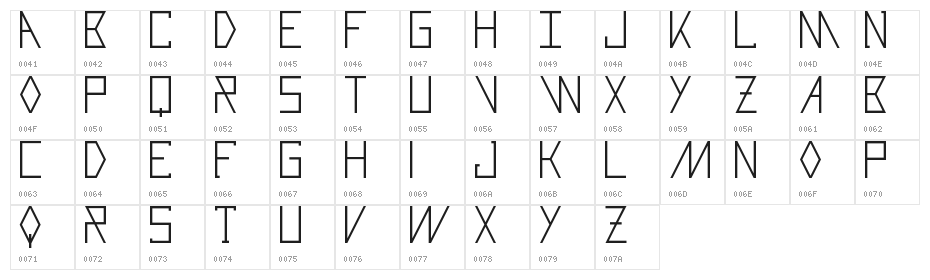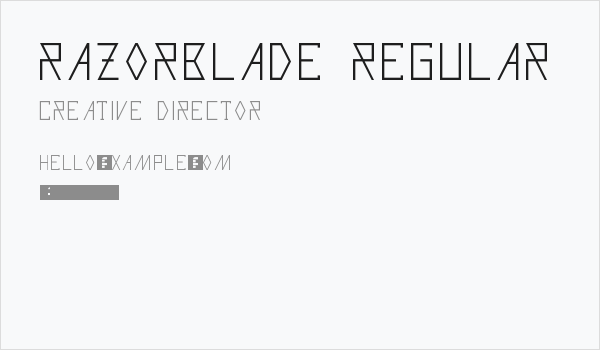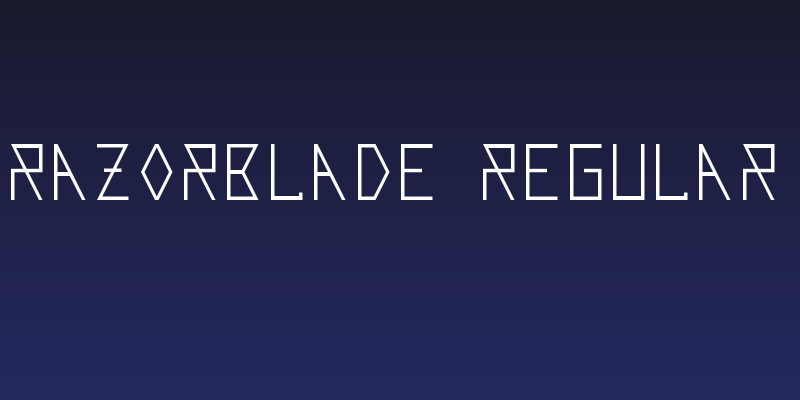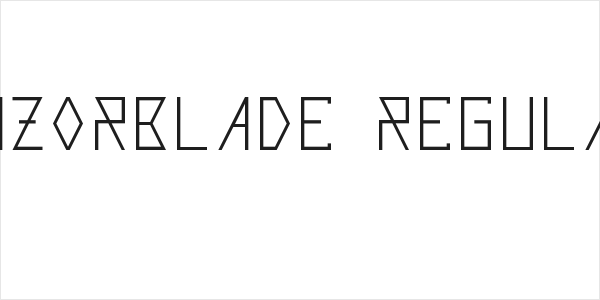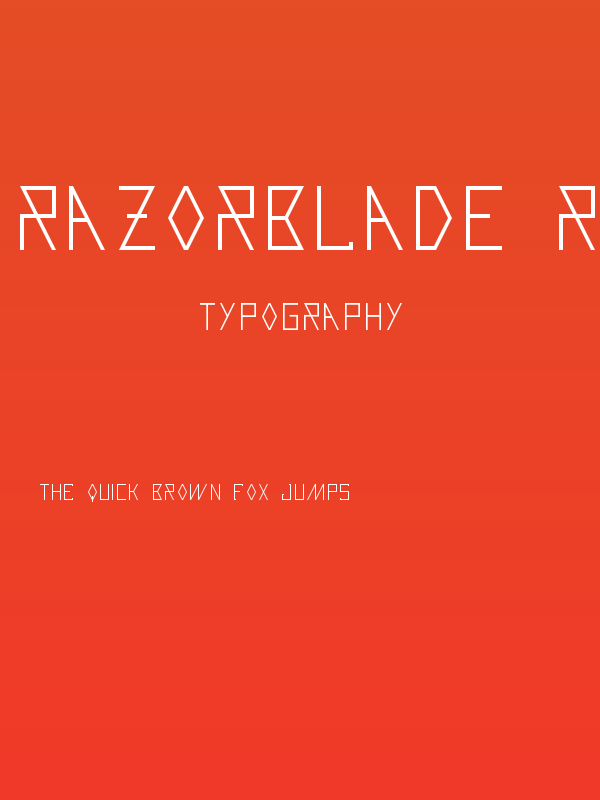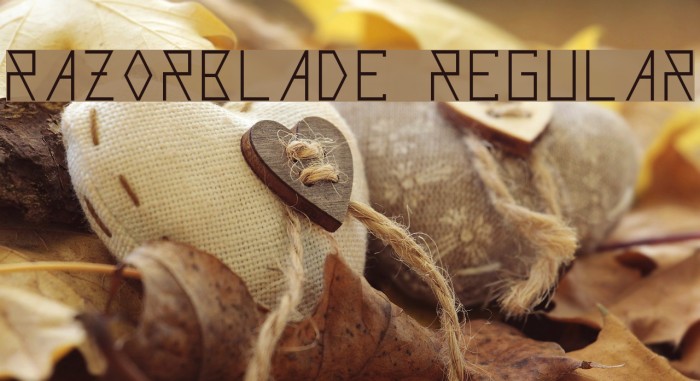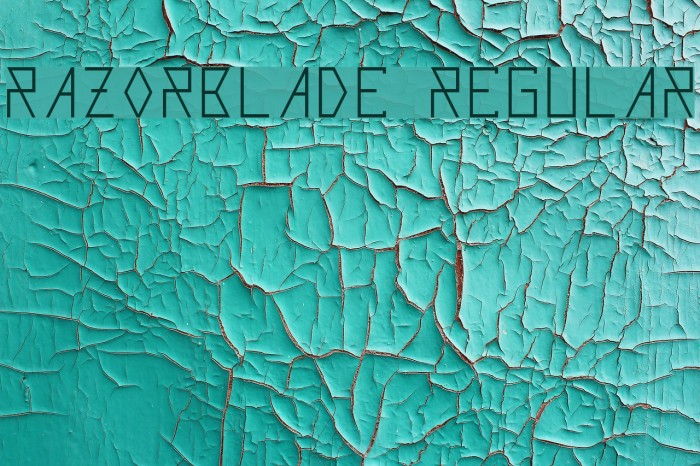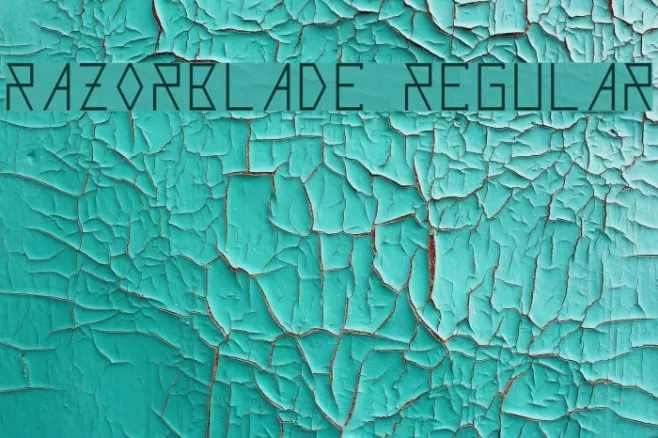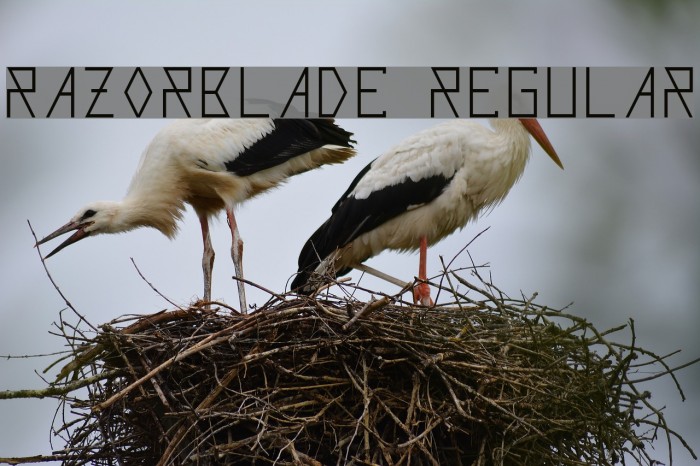
Razorblade Regular Font
Razorblade Regular Description
This font features a geometric and angular design, characterized by sharp edges and a modern aesthetic. The uppercase letters are distinct with a futuristic feel, while the lowercase letters maintain a consistent style that complements the uppercase. The numerals and special characters follow the same angular theme, providing a cohesive look across all characters. The font's unique style makes it stand out, offering a bold and edgy appearance suitable for modern designs. Its clean lines and sharp angles give it a sleek and contemporary vibe, making it ideal for projects that require a distinctive and eye-catching typeface.
RAZORBLADE-REGULAR UPPERCASE
RAZORBLADE-REGULAR LOWERCASE
RAZORBLADE-REGULAR OTHER CHARS
| Proposed Projects | Ideal for tech branding, futuristic posters, video game titles, and modern logos. |